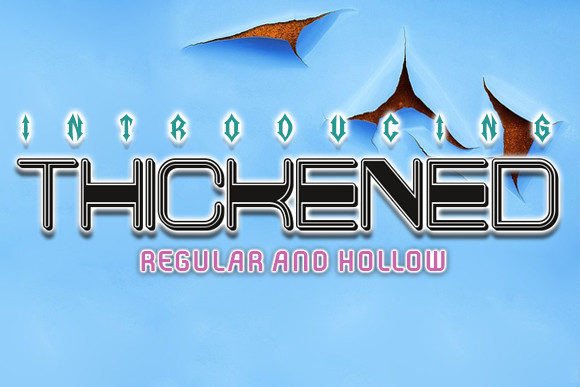
Behold the Thickened font, a striking display typeface that pushes the boundaries of creativity and visual impact. This font is crafted to turn heads and elevate your designs to the realm of the extraordinary. Prepare yourself for a font that will captivate your audience and leave a lasting impression.
Unleash the visual symphony of Thickened, a font that transcends the ordinary and propels you into a world of boldness and dimension. Its 3D structure adds depth and intrigue to your designs, making them burst off the page or screen, demanding attention with every stroke.
Picture your event posters, flyers, and t-shirts coming to life with the Thickened font. Its presence on your designs will ensure they stand out in a sea of mediocrity, commanding attention and sparking curiosity from afar. Imagine the thrill of creating designs that resonate with your target audience, captivating them with every visual encounter.
With Thickened, your designs will transcend the mundane, becoming a testament to your creativity and passion. Prepare to captivate your audience, evoke emotions, and leave an indelible mark on their minds. Embrace the power of Thickened and unlock a new dimension of design possibilities.